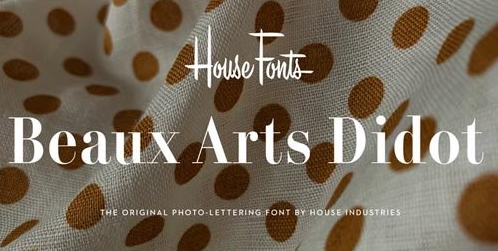
Plinc Beaux Arts Didot Font
Firmin Didot is credited with establishing the Modern genre of serif typefaces, of which Beaux Arts Didots stands as an exemplary model. Like the French neoclassical architecture of its namesake, Beaux Arts has all the hallmarks of the early nineteenth-century style: a clear and confident construction consisting of simple yet strong lines. Use it for elegant and formal settings, or when a direct typographic tone is desired.